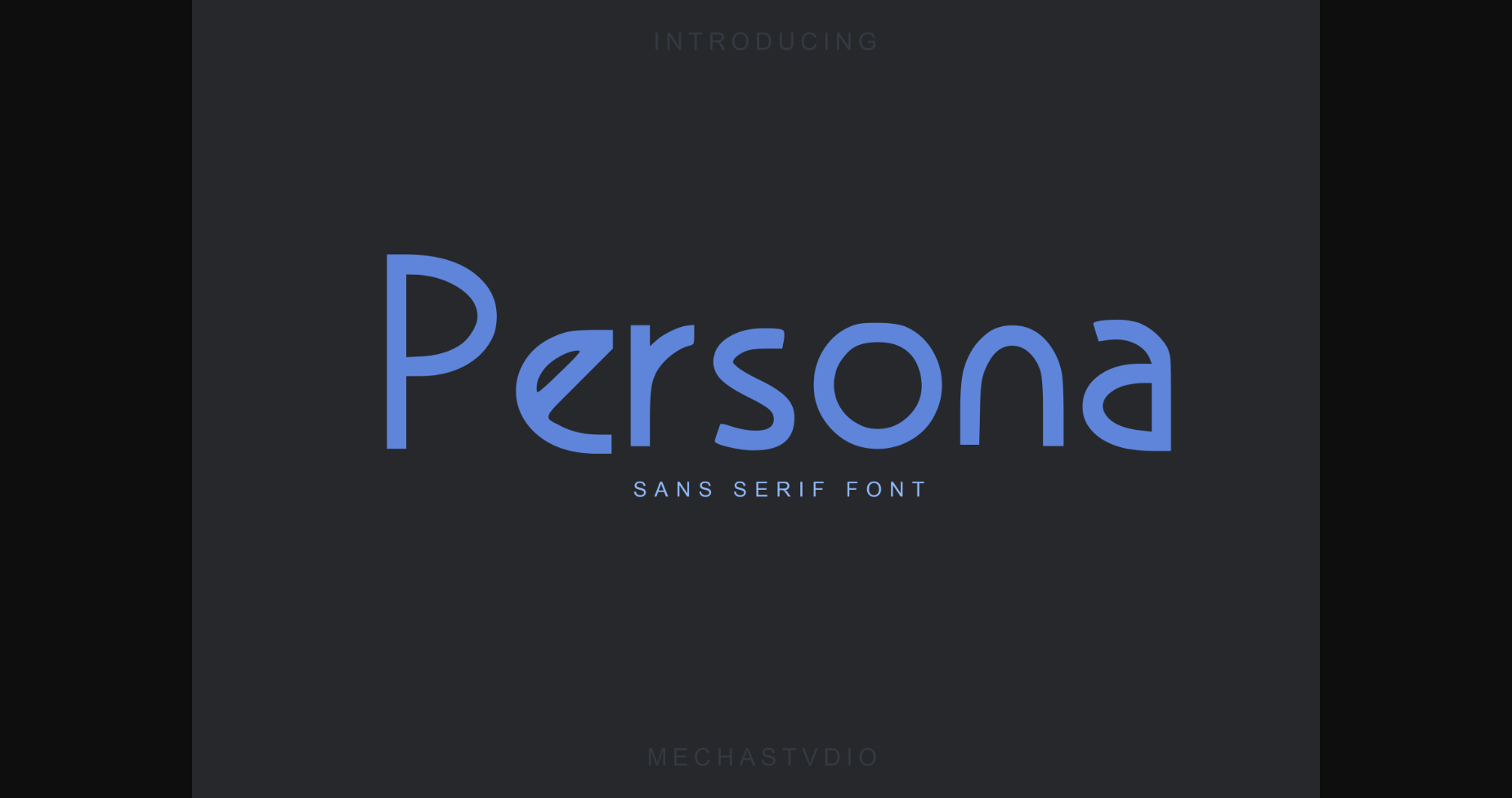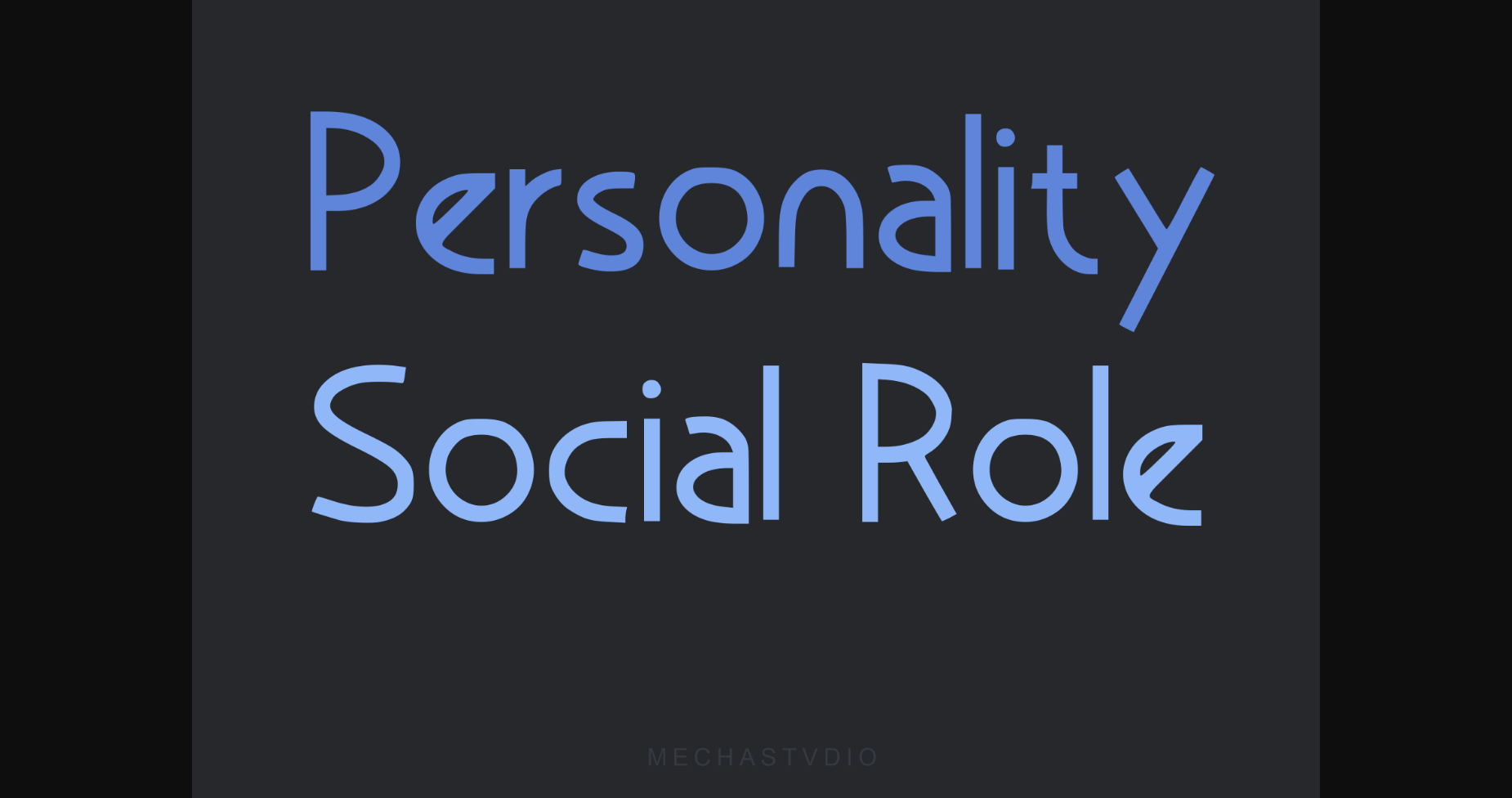
About Persona Font
Persona is a basic, clean, and simple sans serif font. Its unique style is perfect for all your projects as it has the potential to transform them into a true standout.